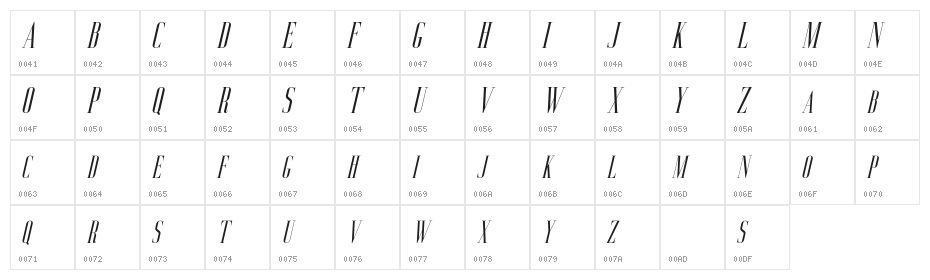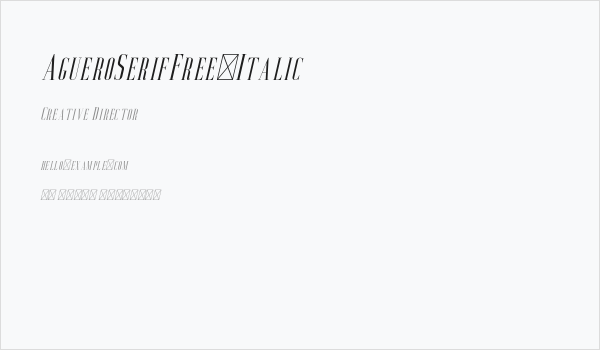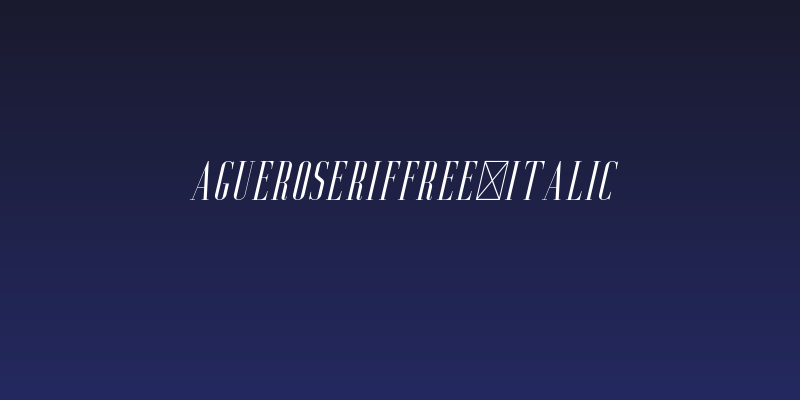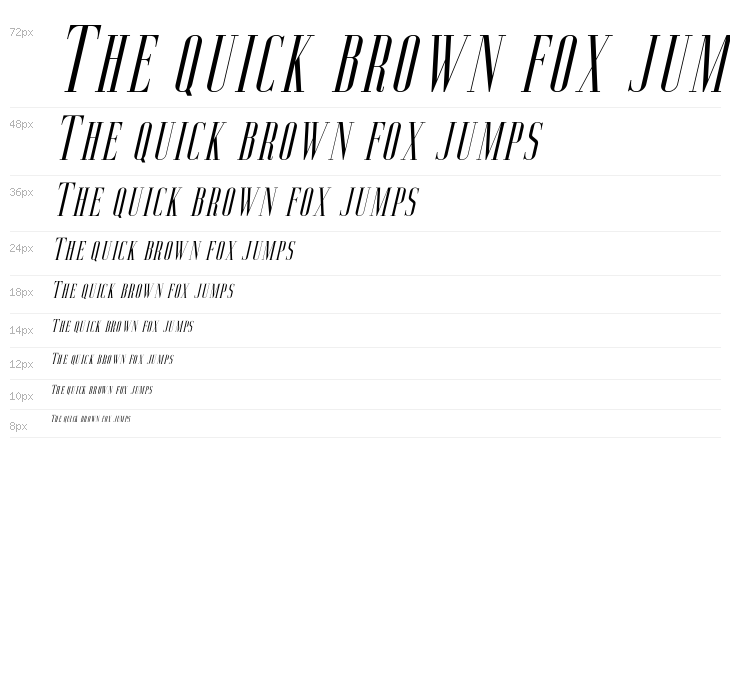
AgueroSerifFree-Italic Font
AgueroSerifFree-Italic Description
This font exhibits a sophisticated and elegant serif style with a pronounced italic slant, giving it a dynamic and stylish appearance. The characters are elongated and slender, with high contrast between thick and thin strokes, enhancing its refined and classic look. The serifs are sharp and pronounced, adding to the font's formal and traditional aesthetic. The uppercase letters are particularly striking, with a tall and narrow form that conveys a sense of grandeur and sophistication. The lowercase letters maintain the same elegance, with a consistent italic angle that unifies the overall design. The numerals are designed to match the letterforms, with a similar contrast and serif detailing. This font is ideal for projects that require a touch of elegance and formality, such as invitations, luxury branding, or editorial design.
| Proposed Projects | Ideal for luxury branding, wedding invitations, editorial design, and formal event materials. |